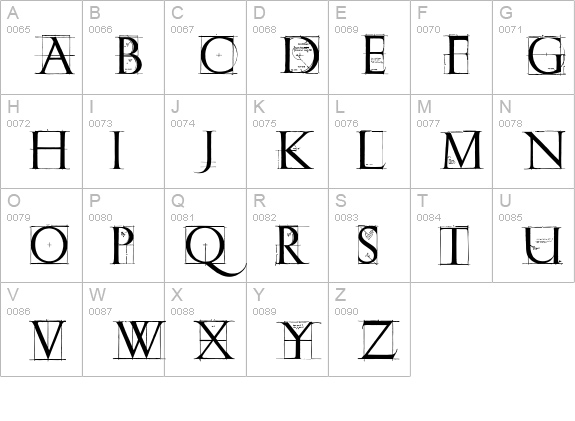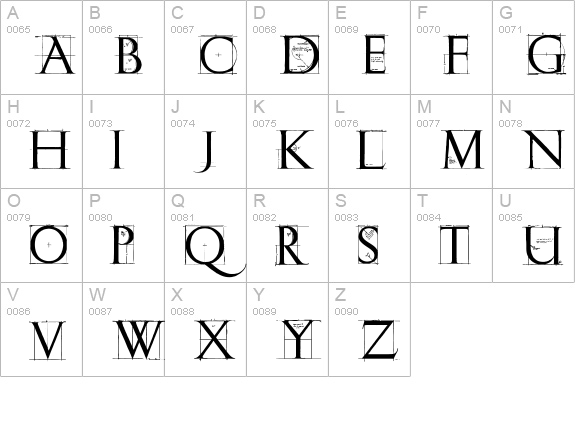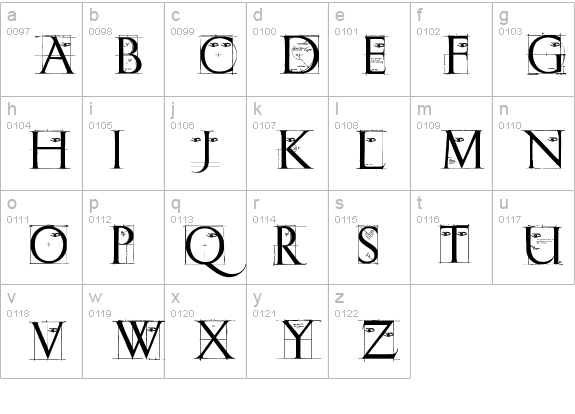
ErikGCapsSketches Font Details
ErikGCapsSketches font is a charming and playful typeface that exudes a hand-drawn aesthetic perfect for adding a whimsical touch to your designs. With its unique and quirky letterforms, this font is sure to make your projects stand out. Whether you're creating invitations, posters, or social media graphics, ErikGCapsSketches font will bring a fun and artistic vibe to your work. The best part? ErikGCapsSketches font is completely free to download at FontsMarket.com. Enjoy unlimited access to this delightful font and unleash your creativity without any cost. Add a touch of personality to your designs with ErikGCapsSketches font today!